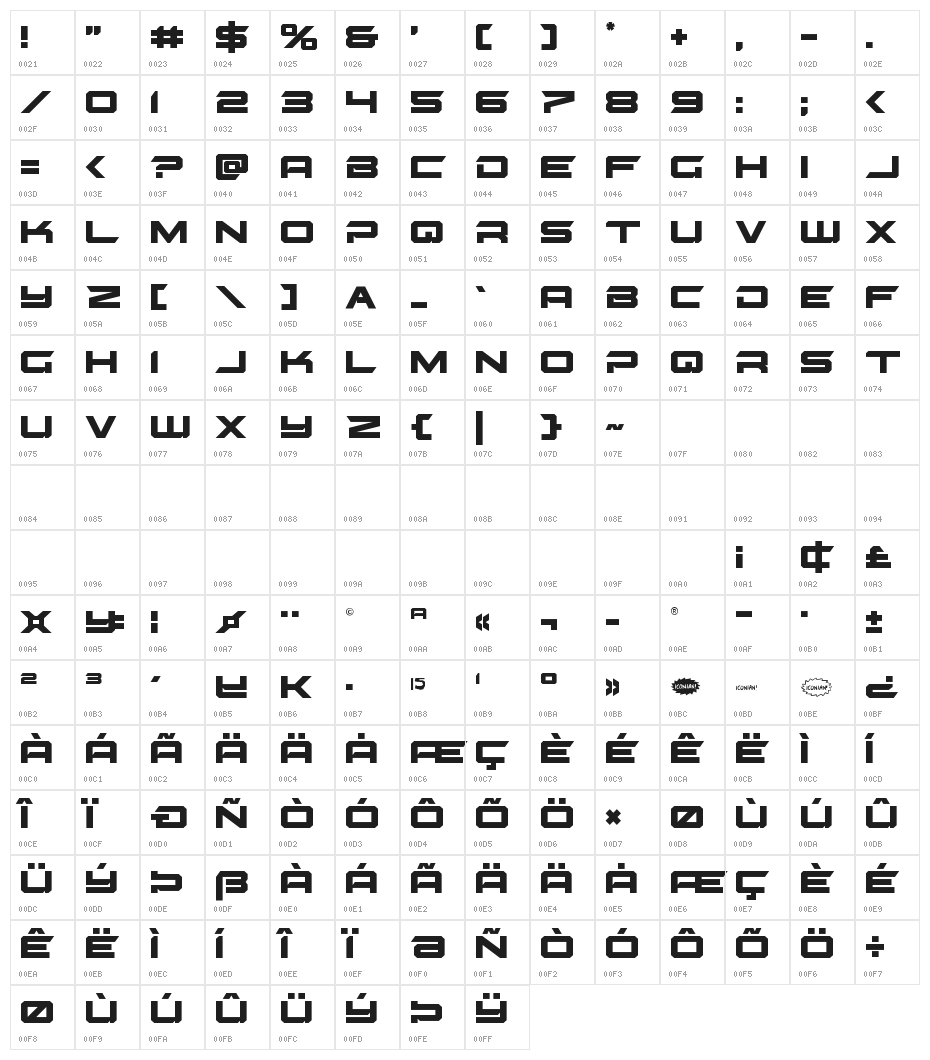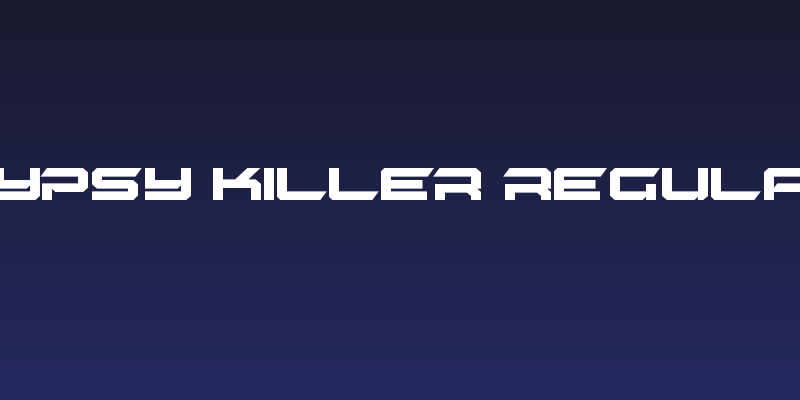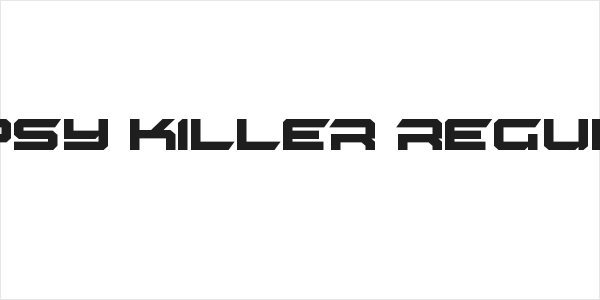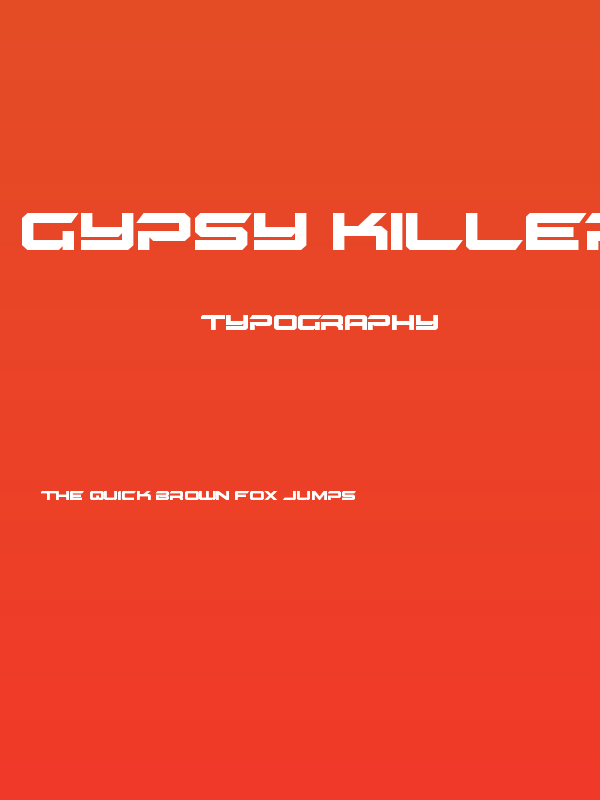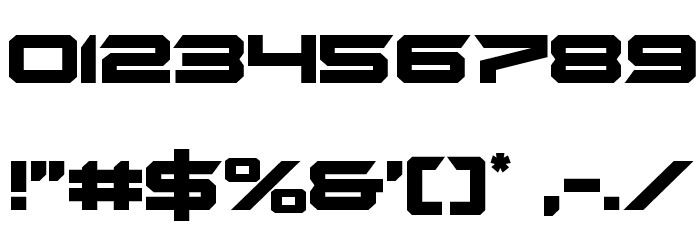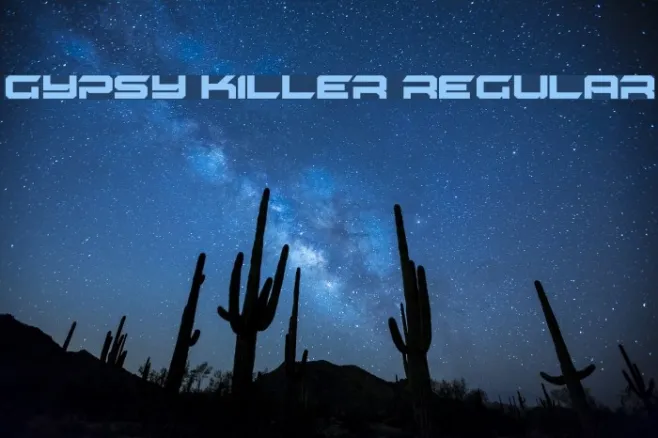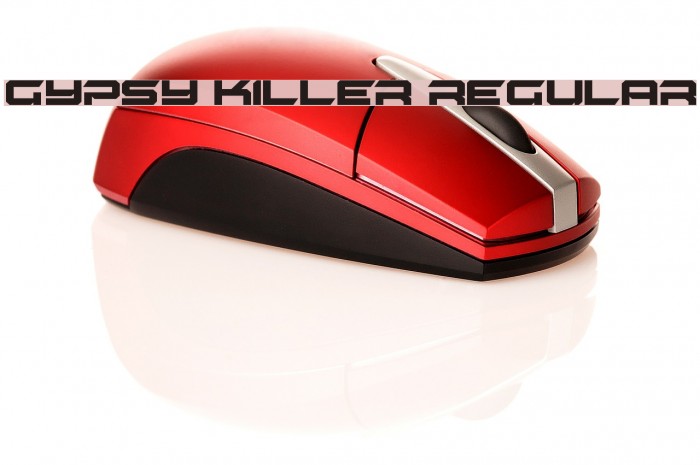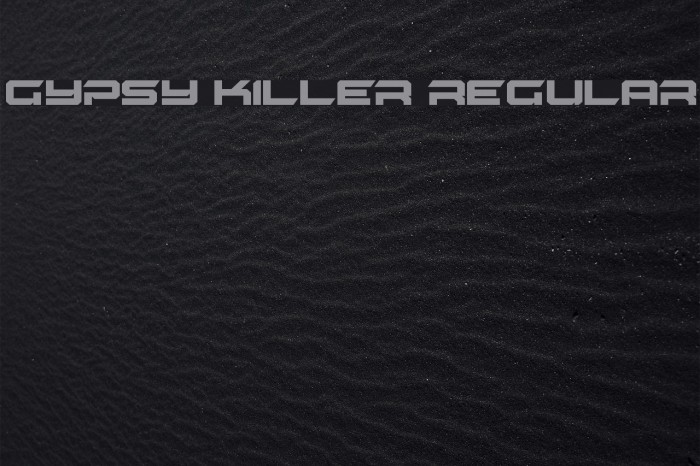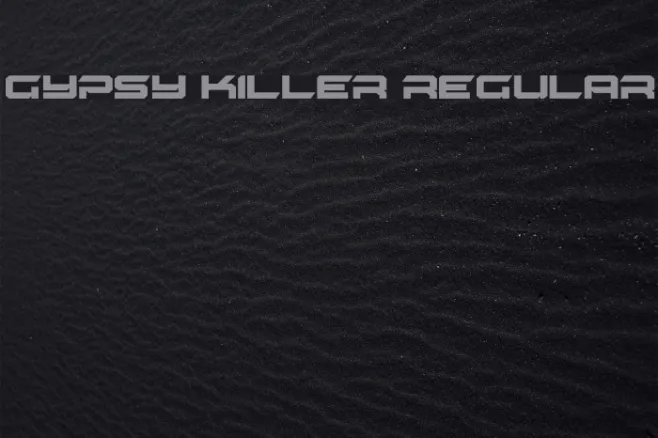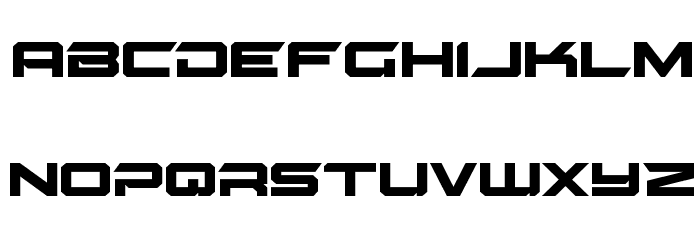
Gypsy Killer Regular Font
Gypsy Killer Regular Description
This font features a bold, geometric design with sharp angles and a futuristic aesthetic. The characters are constructed with a consistent thickness, giving it a strong and impactful presence. The uppercase letters are particularly striking, with a blocky, almost stencil-like appearance that suggests a modern, tech-inspired style. The numbers and special characters maintain this cohesive look, ensuring versatility across different uses. Its distinct style makes it ideal for projects that require a bold statement, such as branding, posters, or digital media.